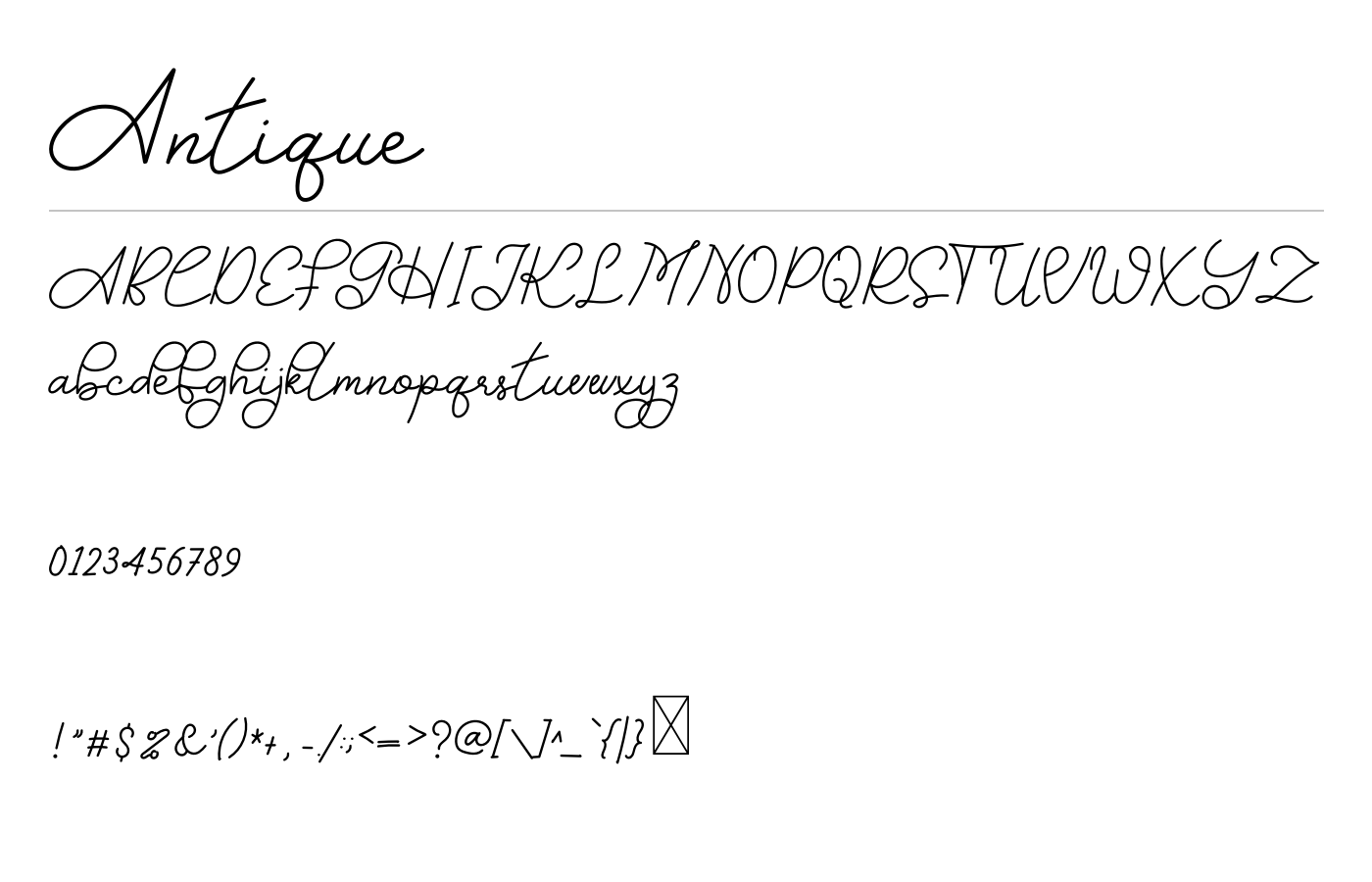
Antique Font is a delicate, handwritten script with slender strokes and graceful curves that evoke a refined, vintage charm. Its elegant letterforms are perfect for invitations, branding, and editorial design where a classic, sophisticated touch is desired. This font works well in settings that aim to convey timeless beauty and personal warmth.
Antique Font